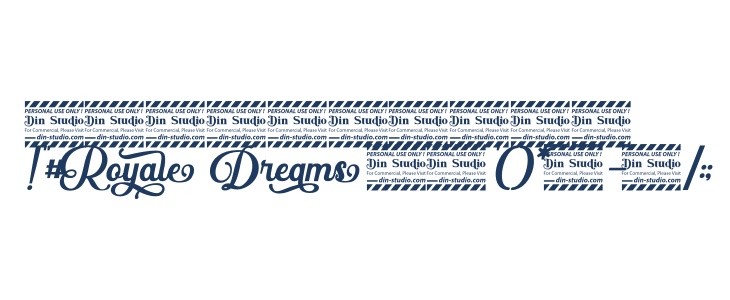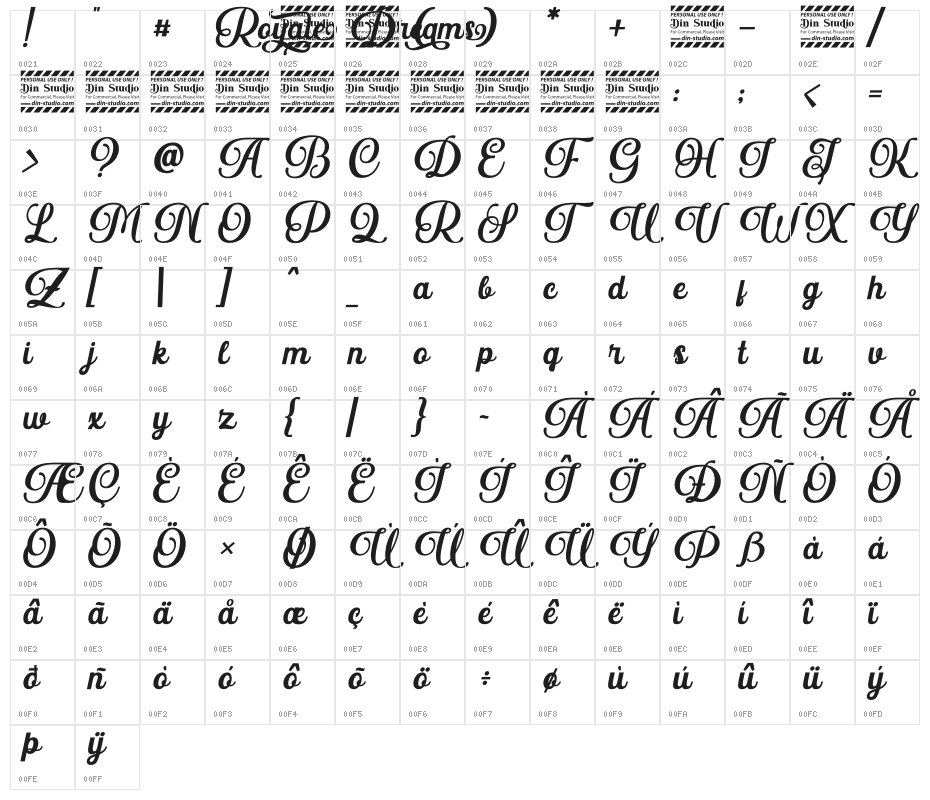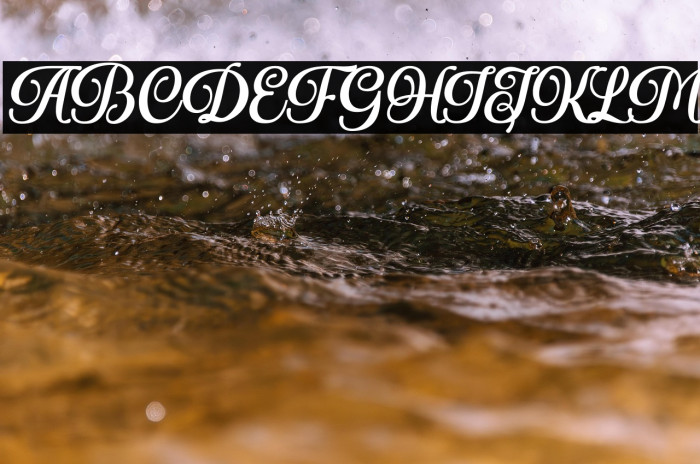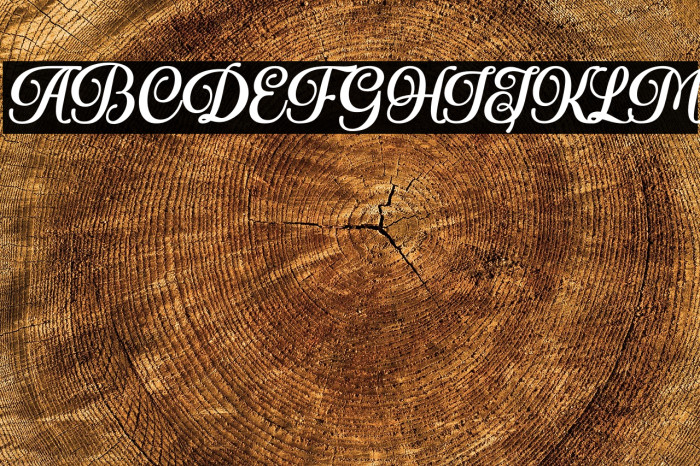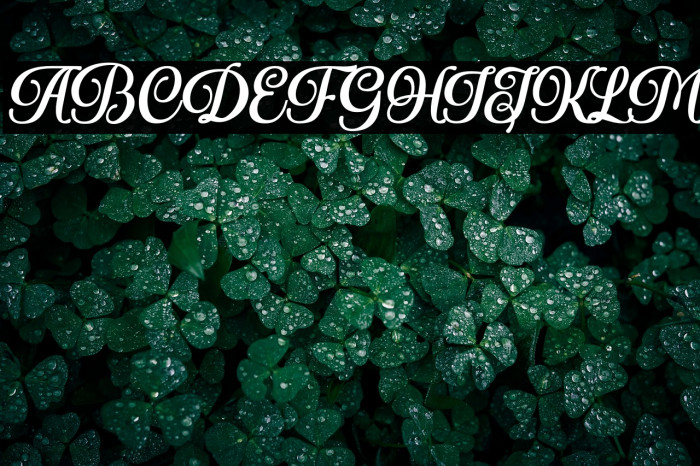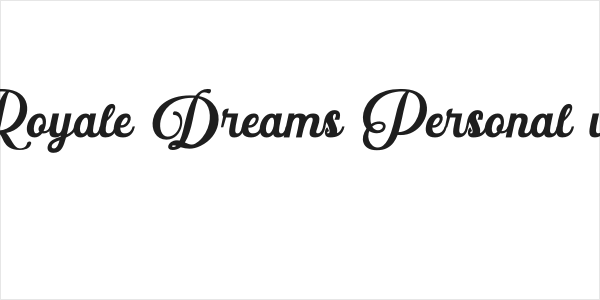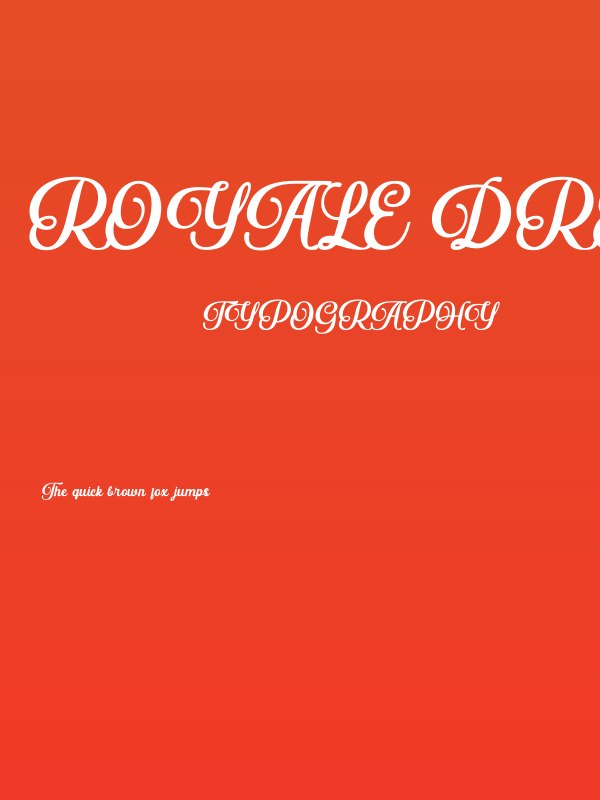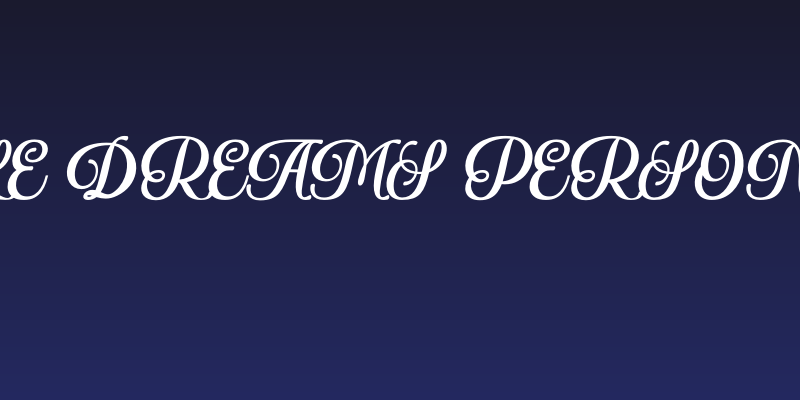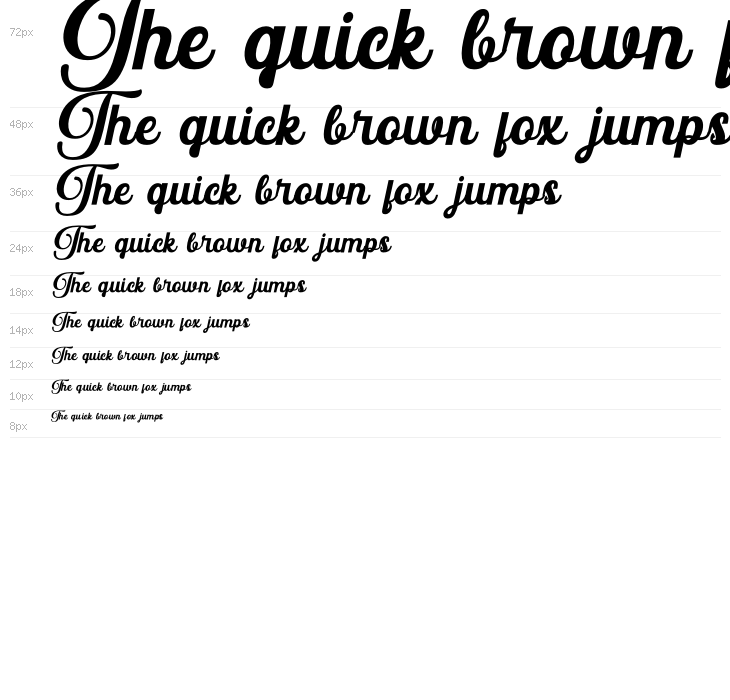
Royale Dreams Personal use Font
Royale Dreams Personal use Description
This font features a stylish and elegant script design with a flowing, cursive style. The uppercase letters are ornate, with intricate loops and swirls, giving them a sophisticated appearance. The lowercase letters are more straightforward but maintain a smooth, connected script style that complements the uppercase. The numbers and special characters follow the same elegant script theme, making them suitable for decorative purposes. The overall look is both classic and modern, making it versatile for various design needs.
| Proposed Projects | Ideal for wedding invitations, branding, logos, and elegant packaging designs. |